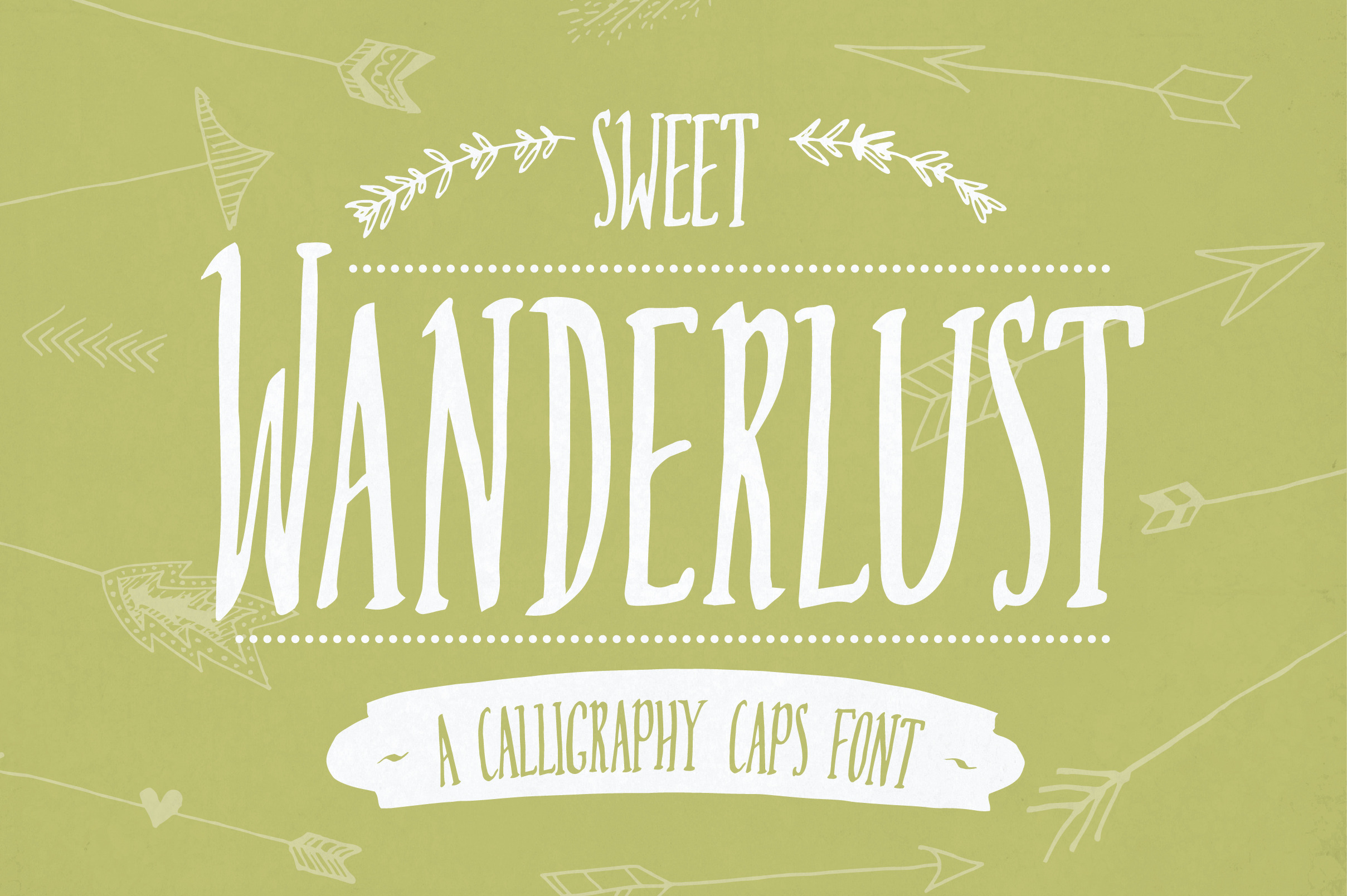
Sweet Wanderlust is a fresh take on traditional calligraphy, featuring cute imperfections that add quirkiness and a vibrant, handmade feel to your text. It is an all-caps font that is bold and expressive but still a little nostalgic - perfect for modern vintage and handmade style projects. Try it overlaid on photos or as a feature of your branding...it even works beautifully in typography art! The sky's the limit.
It comes with all the essential glyphs (see example pic 2), plus extras including alternate currency symbols, copyright, and all the accents you need to write in most European languages.